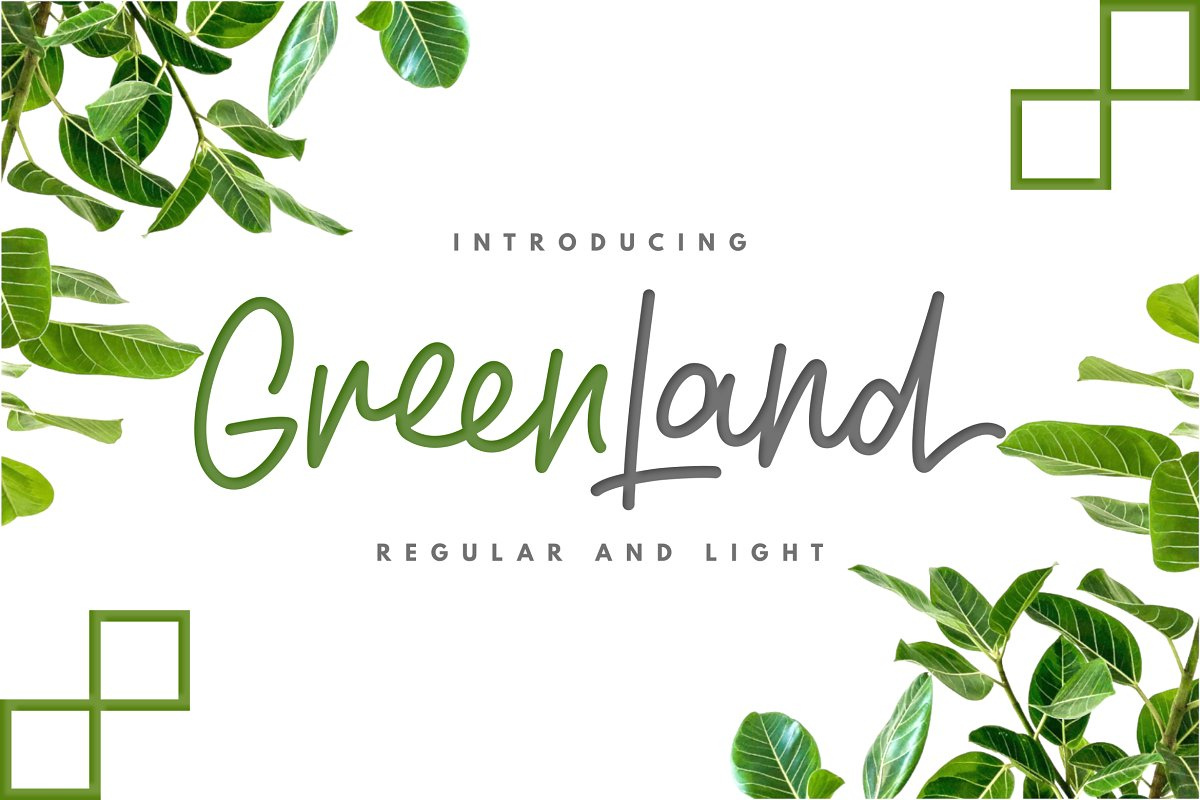
Greenland Script Duo Font
Greenland Script Duo Font is perfect for Arctic-inspired branding projects, Nordic lifestyle marketing, cold weather product packaging, expedition company identities, glacial beauty campaigns, wilderness adventure communications, pristine environmental materials, and pure advertising projects. This pristine typeface collection works beautifully in both digital applications and print media where natural purity and Arctic elegance are essential design elements.
What makes Greenland Script Duo Font so exciting is its breathtaking interpretation of Arctic majesty and pristine wilderness through flowing letterforms that seem carved by glacial forces with the same pure elegance and untouched beauty that defines the world's most remote and pristine landscapes. The font features crystalline characters with Arctic proportions, glacial curves, and pure details that evoke the breathtaking serenity of untouched ice fields and the profound peace found in Earth's most pristine environments. Its pure personality and wilderness heritage make it ideal for brands seeking to communicate environmental purity, natural authenticity, and the transformative power of pristine wilderness experiences.
The Greenland Script Duo Font collection includes complementary script and sans-serif families with coordinated Arctic styling, along with glacial alternates and wilderness ornamental elements. Each style maintains the typeface's pristine character while offering comprehensive character sets including pure numerals, Arctic-inspired punctuation marks, and special symbols designed to enhance environmental communications and wilderness branding efforts across various pristine contexts.
This remarkable typeface collection represents the perfect fusion of Arctic inspiration and contemporary design functionality for environmental and adventure industries. Whether you're developing expedition company identities, creating wilderness tourism materials, or designing environmental conservation campaigns, Greenland Script Duo Font Free Download provides the pristine elegance and versatility needed to connect with nature-loving audiences. The font's Arctic appeal makes it particularly effective for outdoor adventure companies, environmental organizations, pristine product brands, and businesses celebrating the beauty and importance of preserving Earth's most untouched wilderness areas.
The carefully crafted glacial details and optimized pristine performance in Greenland Script Duo Font ensure both environmental authenticity and clear communication across all wilderness applications. Its pure presence makes it perfect for Arctic branding, environmental marketing materials, and wilderness communications where its full Greenland character can create lasting connections with audiences who cherish the pristine beauty and profound peace of unspoiled natural environments.